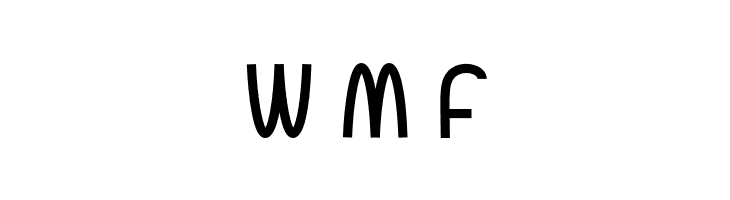
A modern, narrow sans-serif font with clean lines and uniform stroke width.
A modern, bold, narrow sans-serif font with clean lines and medium contrast.
A classic serif typeface with a modern touch, offering elegance and readability.
A bold serif typeface with strong, classic letterforms and excellent readability.
A bold, italic serif font with a classic and dynamic style.
A modern serif font with classic elegance and excellent readability.
Elegant serif font with a subtle italic slant and medium contrast.
Elegant serif font with a classic italic style and moderate contrast.
A playful, bubble-like font with interconnected circular designs for a whimsical look.
A bold, cursive script font with interconnected, flowing letters and dramatic loops.
A playful, rounded font with a bold and whimsical style.
A playful, rounded font with smooth curves and a friendly appearance.
A bold, edgy font with a punk rock aesthetic and shadowed outline.
A playful, handwritten font with rounded edges and a casual style.
A dynamic and fluid script font with smooth, flowing lines and a lively appearance.
A bold, clean sans-serif font with smooth curves and uniform strokes.
A bold, modern sans-serif font with clean lines and a slightly rounded appearance.
A modern, medium-weight sans-serif font with clean lines and versatile style.
A modern, clean font with smooth curves and a balanced structure.
A modern, geometric font with a futuristic and technical style.
A bold, italicized font with a modern yet classic style.
A classic serif font with a modern, elegant italic style.
A classic serif font with modern elements, offering clarity and elegance.
A graceful script font with flowing, connected letters and elegant flourishes.
A classic serif font with elegant strokes and refined proportions.
A bold, classic serif font with strong strokes and pronounced serifs.
A bold, italic serif font with a classic and elegant style.
An elegant italic serif font with smooth curves and a refined, classic style.
A playful, handwritten font with a whimsical and modern style.